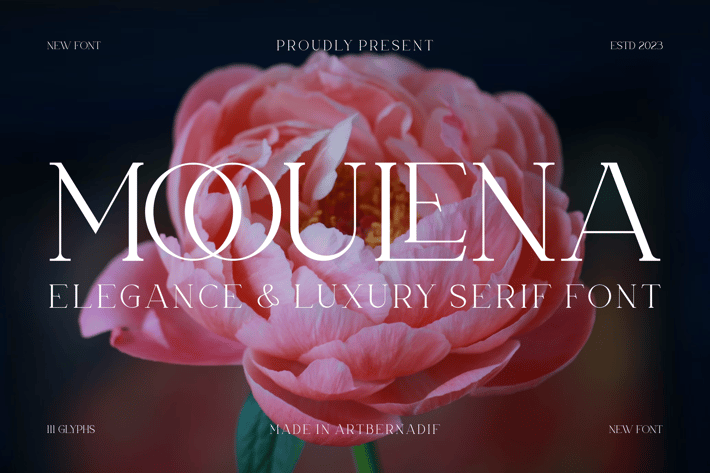
Mooulena - Elegance & Luxury Serif Font
Introducing our new product Mooulena Font Elegance & Luxury Serif Font
Mooulena Font Modern Font is a bold and authentic display font. The font is suitable for any branding project like logo, t-shirt printing, esport, and many more.
outstanding in a wide range of contexts.
Mooulena Uppercase
Mooulena Ligature & Alternative